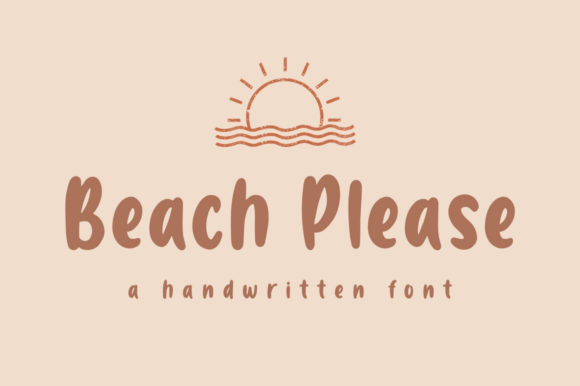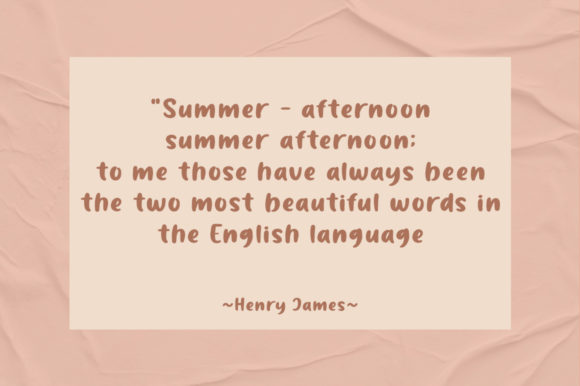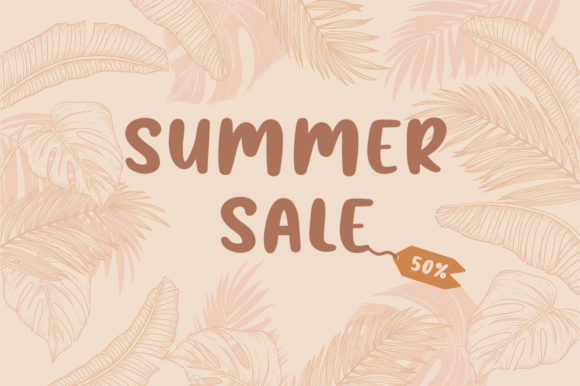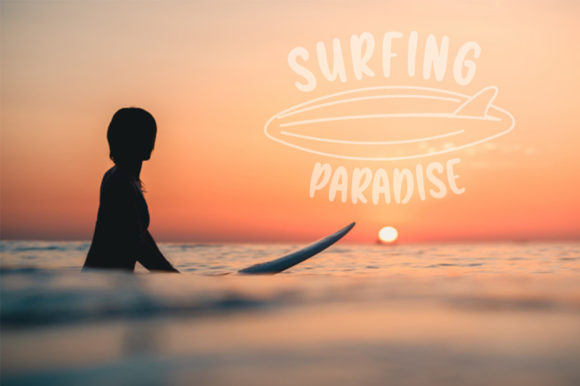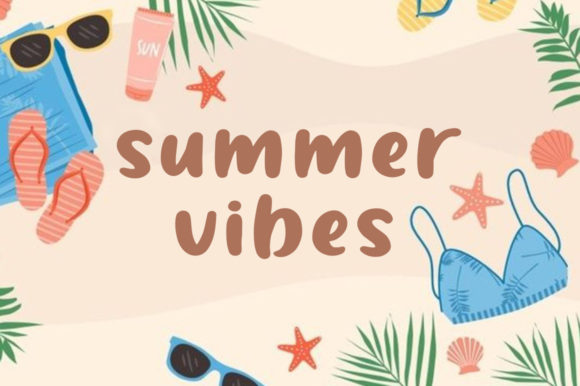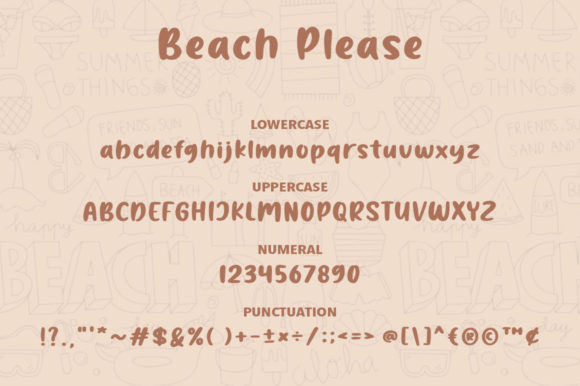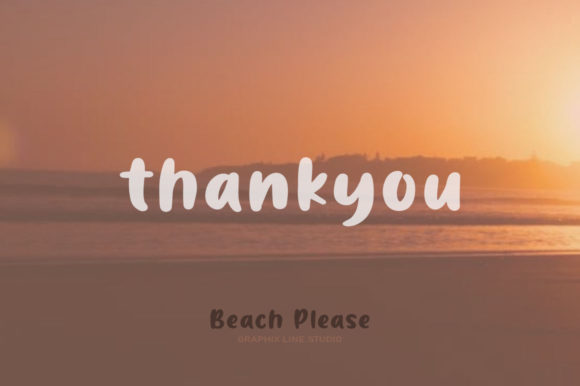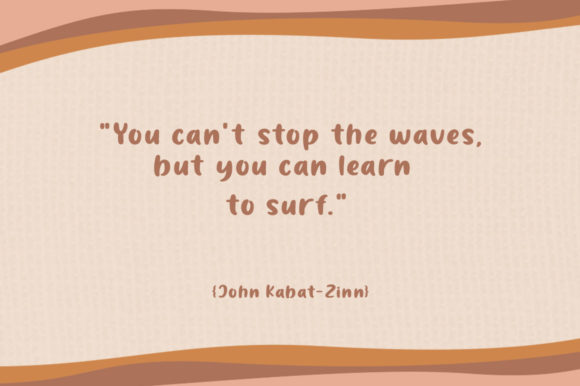
Beach Please Font
About Beach Please Font
Beach Please is a sweet and playful brushed handwritten font. Its natural and unique style makes it incredibly fitting to a large pool of designs. The only limit is your imagination!